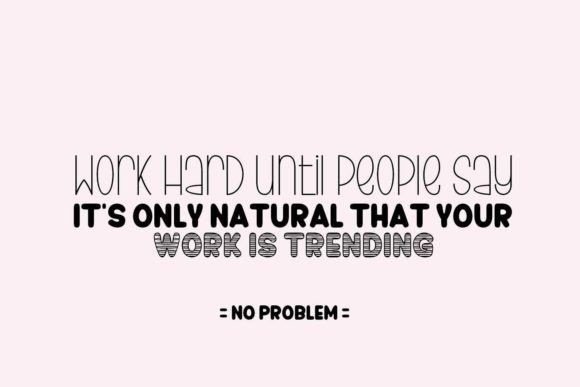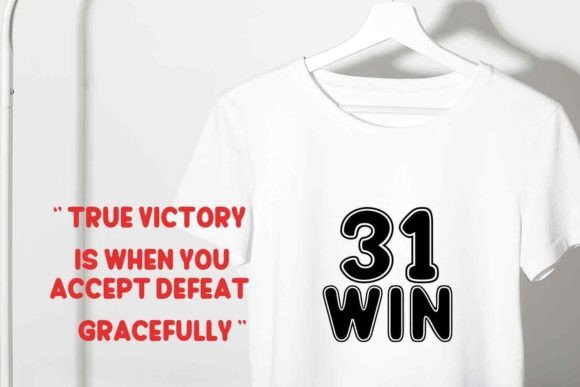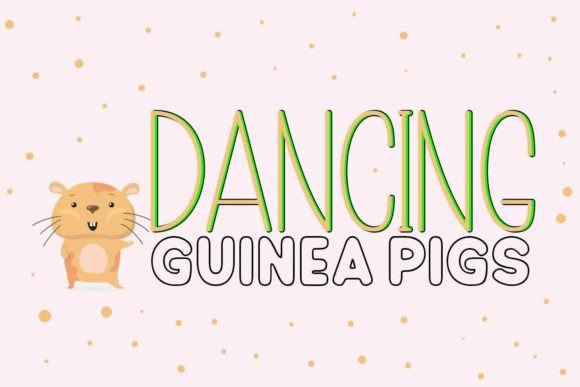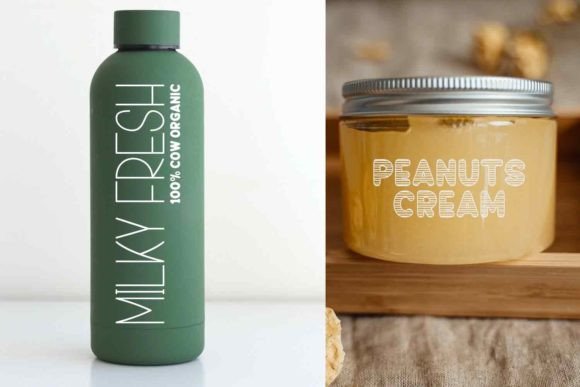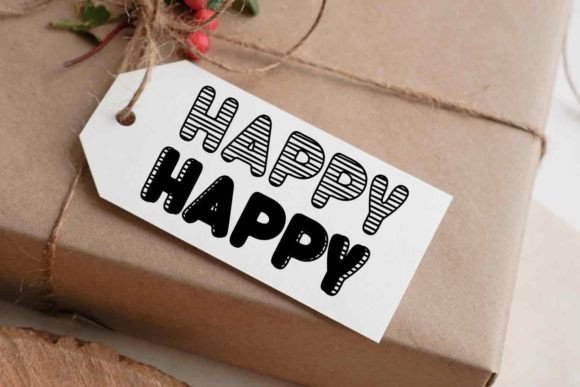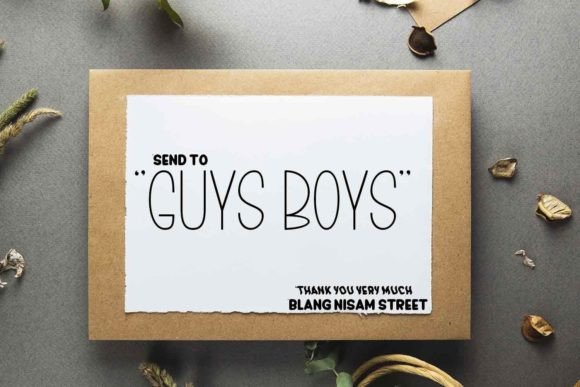
Introduction to Snow Bread Font
Have you ever been working on a creative project, and the perfect font just evades you? You want something that pops, something that captures the essence of your design. For designers, finding the right font can be a challenge, but what if you stumbled upon a font that not only meets your expectations but exceeds them?
Enter the Snow Bread Font, a display themed font that’s packed with various shapes and styles, making it an ideal design resource for any project. Whether you’re working on a free download or a high-quality commercial project, this font is sure to bring your design to life. With its transparent background and wide range of styles, the Snow Bread Font is a valuable addition to any designer’s toolkit.
Let’s dive into the world of the Snow Bread Font and explore what makes it a game-changer for designers.
Key Features of Snow Bread Font
- High-quality, hand-drawn design with a delicate and whimsical feel, perfect for creative projects.
- Features a transparent background, allowing for easy customization and composition.
- High-resolution design (300 DPI) ensures crisp and clear results, ideal for print and digital use.
- Unique characteristics include intricate details and subtle texture, adding depth and visual interest to any design.
- Perfect for use in a variety of creative projects, from illustrations and graphics to branding and packaging.
Honest Review: Snow Bread Font
I recently stumbled upon the Snow Bread Font while searching for a free design resource to enhance my creative project. I must say, I’m impressed with the overall quality of this font.
- ✨ Unique design style: The font has a clean and minimalist aesthetic that sets it apart from other fonts in its category.
- ✨ High quality: The font is well-crafted and looks great in both print and digital formats.
- ✨ Transparent background: The font’s transparent background makes it easy to use on any background, giving designers more flexibility.
- ⚠️ Limited character set: The font only includes uppercase and lowercase letters, with no additional characters or symbols.
- ⚠️ Not suitable for large text: While the font looks great in small to medium-sized text, it may not be the best choice for large text or headlines.
Overall, I think the Snow Bread Font is a great addition to any designer’s toolkit. While it may have some limitations, its unique design style and high quality make it a valuable resource for any creative project. Whether you’re looking for a free download or just want to add some flair to your design, the Snow Bread Font is definitely worth checking out.
Getting the Most Out of Snow Bread Font
To maximize the potential of Snow Bread Font, experiment with different font sizes, colors, and styles. Combine it with other design resources to create unique and eye-catching compositions.
Snow Bread Font is suitable for various design projects, including social media graphics, brochures, and advertisements. Its high-quality design and transparent background make it an ideal choice for creative professionals and hobbyists alike.